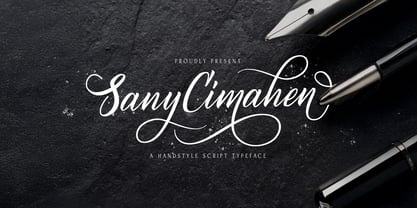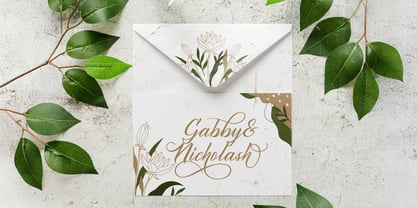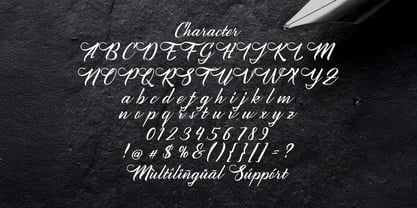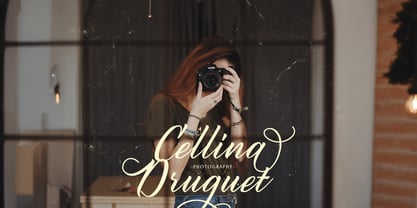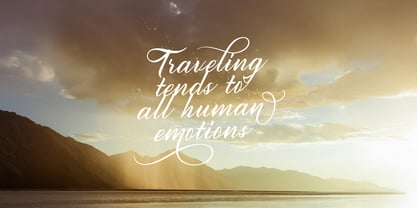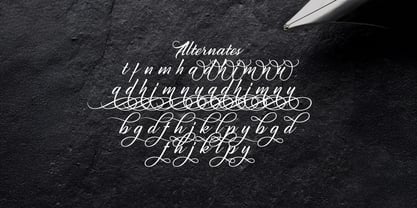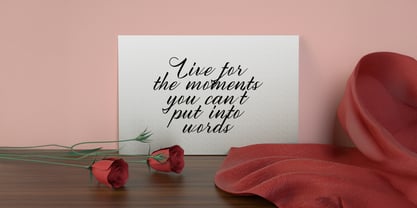
Sany Cimahen
by Stringlabs Creative Studio
The Sany Cimahen Font Family was designed by Virgiawan Listanto and published by Stringlabs Creative Studio. Sany Cimahen contains 1 styles.
Sany Cimahen is a flowing handwritten font, described by an elegant touch, perfect for your favorite projects. Fall in love with its incredibly distinct and timeless style and use it to create spectacular designs!
Designers: Virgiawan Listanto
Publisher: Stringlabs Creative Studio
Foundry: Stringlabs Creative Studio
Design Owner: Stringlabs Creative Studio